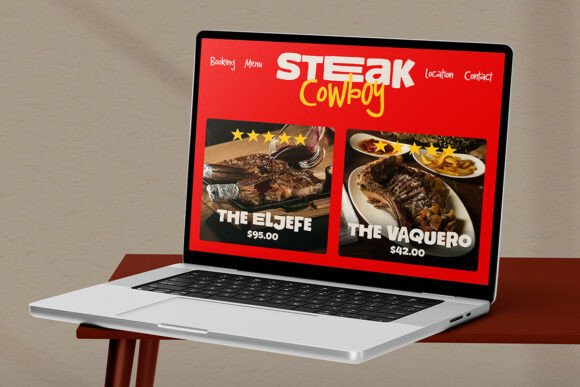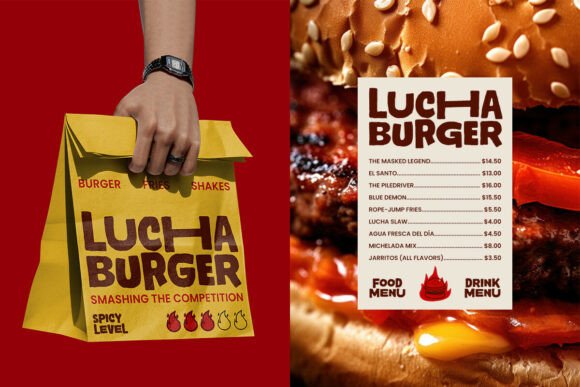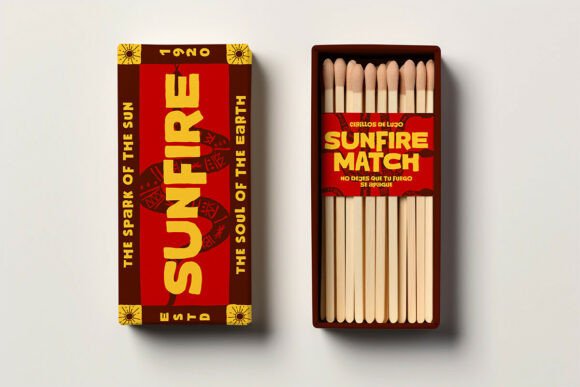
Introduction to Emaro Font
Have you ever found yourself in the midst of a creative project, searching for the perfect font to bring your ideas to life? The moment of truth arrives when you stumble upon a font that captures the essence of your vision – and that’s exactly what Emaro Font does.
With its playful display style, Emaro Font is designed to inject fun, energy, and personality into your designs, making it an invaluable resource for creative projects that require a lively visual voice. From kids’ branding and products to posters and playful headlines, Emaro Font’s bold shapes and cheerful character ensure a friendly and eye-catching look that’s perfect for a wide range of applications.
Key Features of Emaro Font
- High-quality, elegant design perfect for creative projects requiring a sophisticated look.
- Designed to be highly versatile, making it suitable for a wide range of creative projects, from branding to editorial content.
Honest Review: Emaro Font
As a designer, I’m always on the lookout for high-quality design resources that can elevate my creative projects. Recently, I had the chance to try out the Emaro Font, and I must say, it’s been a pleasant experience.
- ✨ High-quality font with a unique and stylish design
- ✨ Transparent background, making it easy to overlay on images or other designs
- ✨ Great for creating visually appealing headers and titles in my design projects
- ⚠️ Limited character set, which can be a problem for designers who need to typeset longer texts
- ⚠️ Not suitable for body text, as it can be quite difficult to read in smaller font sizes
Overall, I’m impressed with the Emaro Font’s unique design and high quality. While it may have some limitations, it’s still a valuable resource for designers looking to add a touch of elegance to their creative projects. I’d definitely recommend it as a design resource, especially for free downloads.
Tips for Getting the Most Out of Emaro Font
To get the most out of the Emaro Font, experiment with different font sizes, colors, and styles to create visually appealing designs. Use the font’s high quality to create professional-looking designs that stand out in your creative projects.
The Emaro Font is ideal for use in a variety of creative projects, including logos, branding materials, and marketing materials. Its transparent background makes it easy to layer over images, creating visually appealing designs that grab attention.